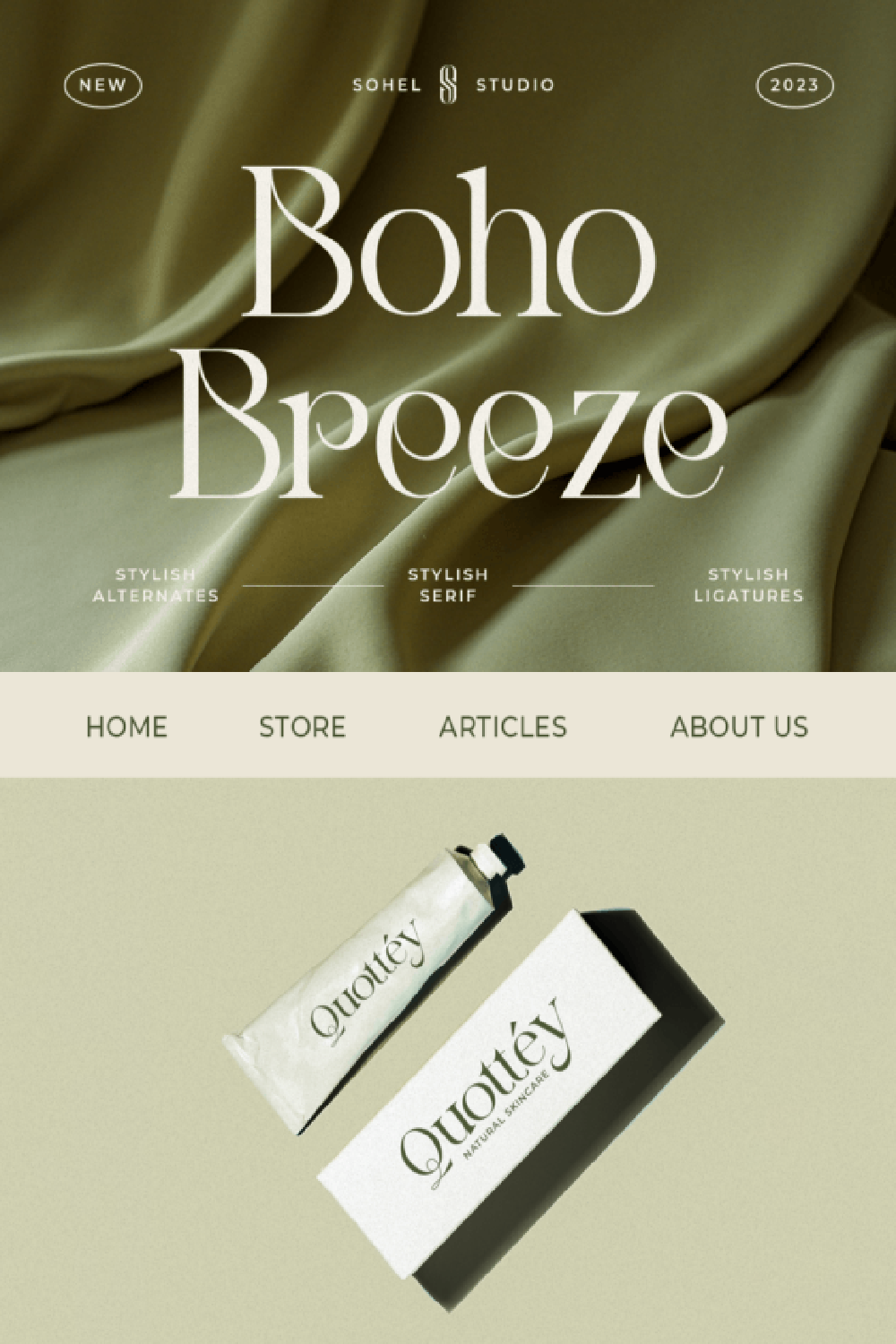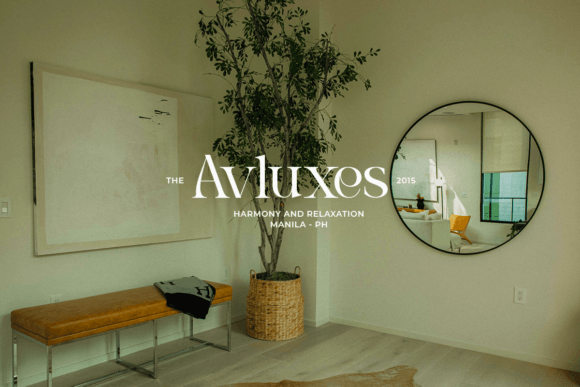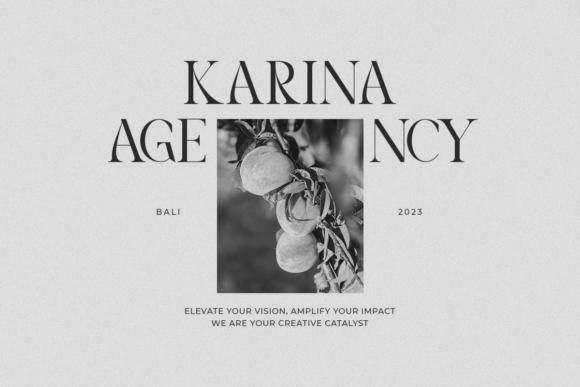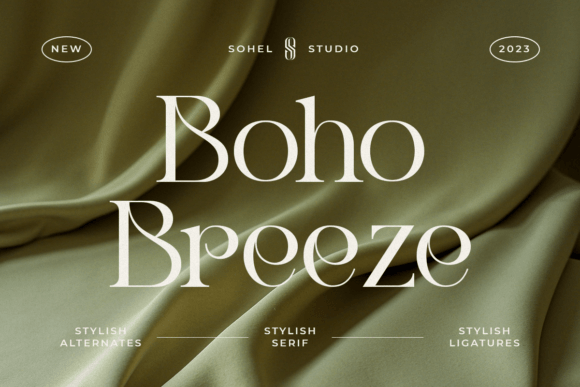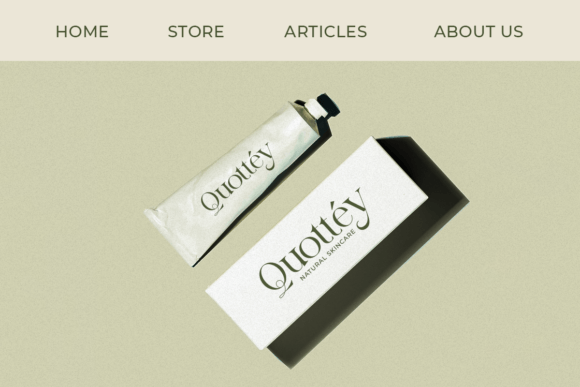
Boho Breeze Font: Elegant Serif Typography for Modern Logo Design
About the Boho Breeze Font
The Boho Breeze Font offers a perfect balance of form and function for your design needs. Boho Breeze is a Modern elegant serif typeface with Unique alternative, multilingual support with perfect kerning.
This typeface is perfect for an elegant & luxury logo, classy editorial design, women’s magazine, fashion brand, cosmetic brand, fashion promotion,
modern advertising design, invitation cards, art quotes, home decoration, book/cover titles, special events, Tote bags, T-shirts, Advertising, and much more.
Boho Breeze Font Usage Examples
Boho Breeze Font Example